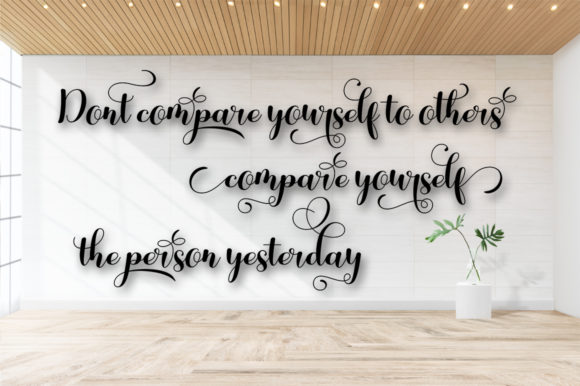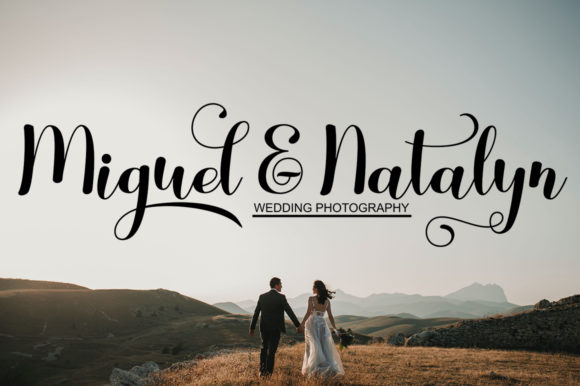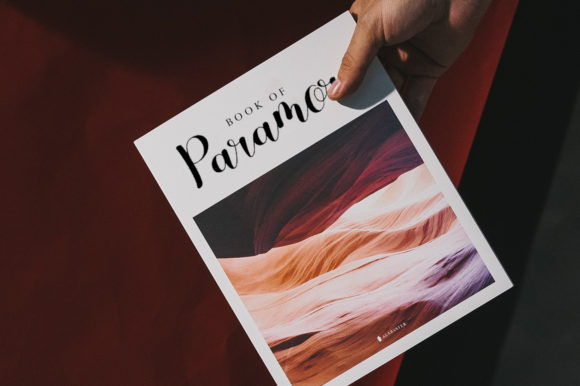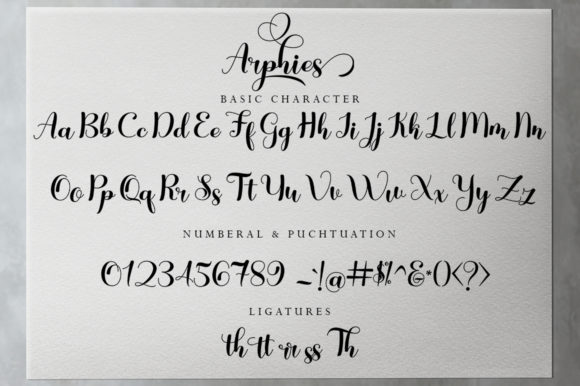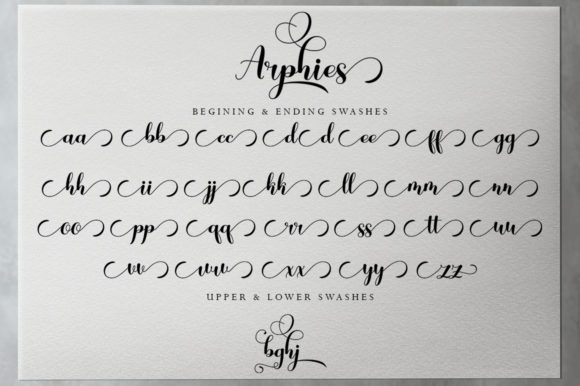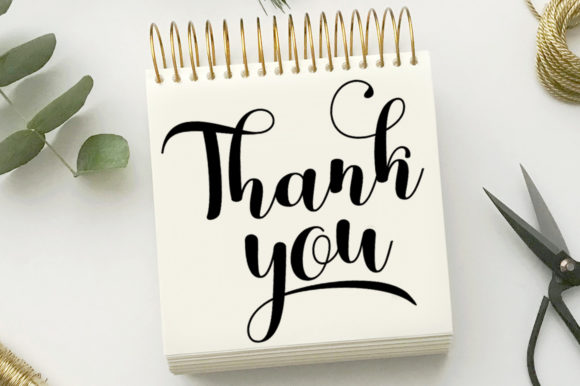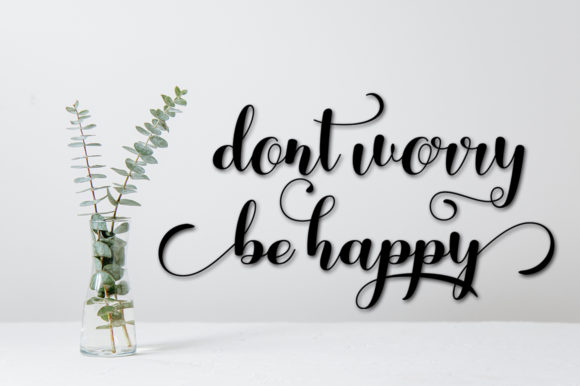
Arphies Font
About Arphies Font
Arpheis feels equally charming and elegant. It looks lovely on wedding invitations, thank you cards, quotes, greeting cards, logos, business cards and every other design which needs a handwritten touch.